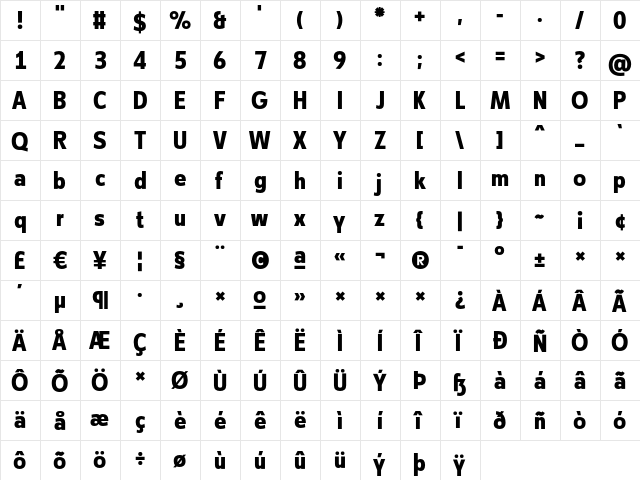
CstBerlinWest BoldTf
Design Context for CstBerlinWest Typeface
CstBerlinWest takes a measured approach to typography — its balanced proportions and neutral character make it a reliable workhorse for both digital and print work. The heavy weight commands attention and anchors typographic hierarchies.
Pro Tip: Pair CstBerlinWest with a font of contrasting weight or personality to build a more expressive typographic hierarchy.